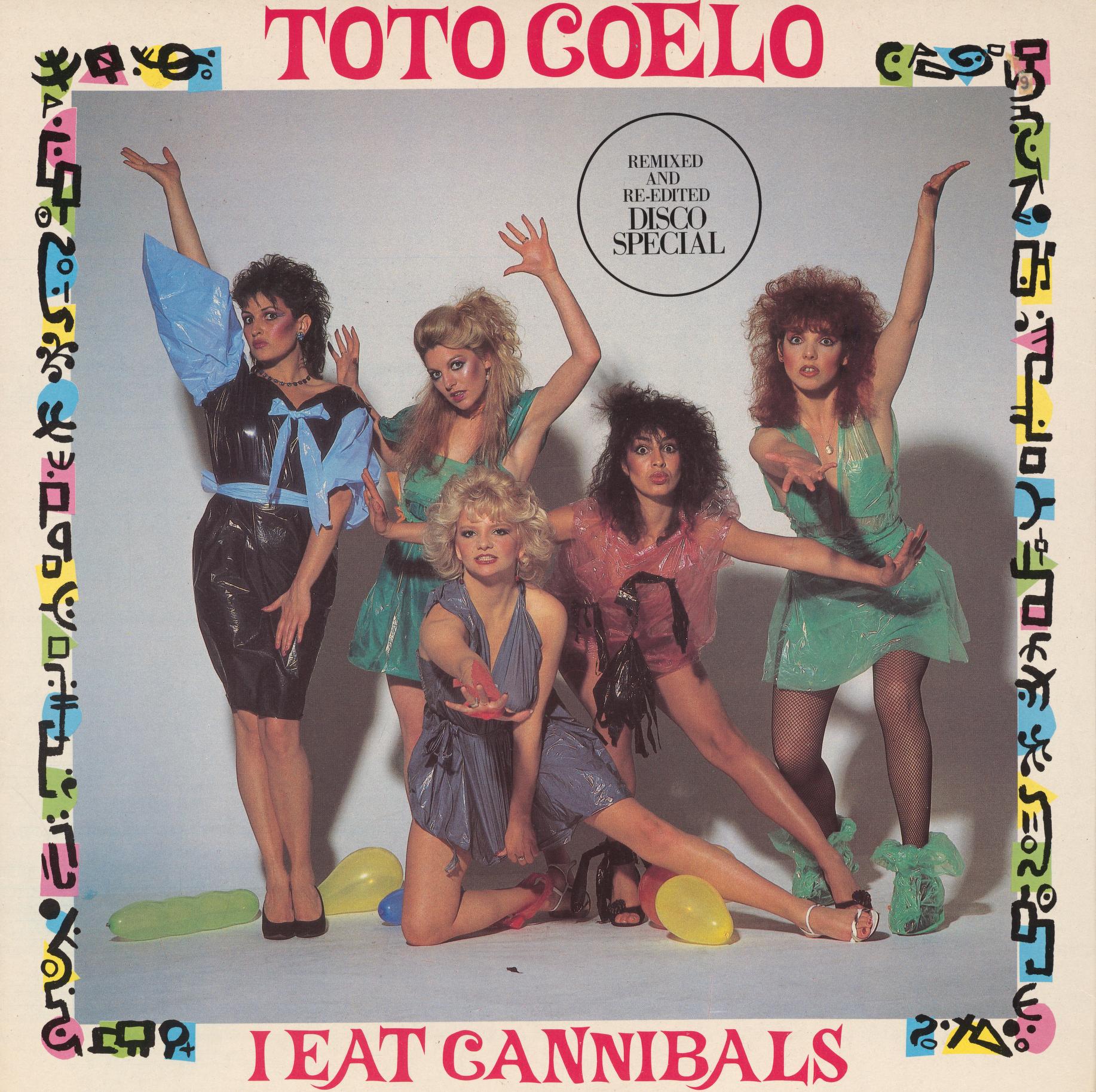
Toto Coelo - I Eat Cannibals (1982) album art
It looks like a custom lettering but it's not, because I swore I see a repeating letter? What is this font?
It’s
Beatnik Flair
, which came with lots of alternates.